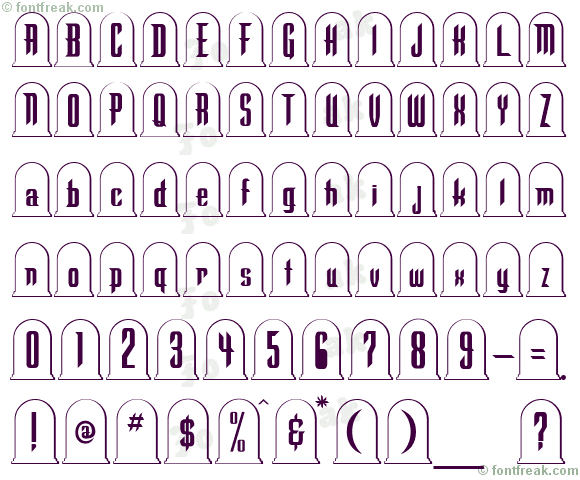
Graveyard Regular
About Graveyard Regular
Graveyard Regular is a distinctive decorative font designed by Aaron Beck, part of a Halloween fonts package produced by Audio Electric Systems. This typeface falls into the display category, characterized by its unique and playful style, making it perfect for themed projects. The font features a medium stroke weight with minimal contrast, enhancing its readability while still maintaining an air of whimsy. The letterforms are adorned with rounded tops, reminiscent of gravestones, which add a charming yet eerie quality to the design. The spacing is carefully considered to ensure clarity and legibility, making it suitable for various applications.
Graveyard Regular is ideal for a range of creative projects, particularly those with a Halloween theme. It works exceptionally well on spooky invitations, party flyers, and movie posters that aim to capture the essence of the season. Additionally, this font can be effectively used for merchandise such as T-shirts, stickers, and other themed products targeting seasonal celebrations. The playful nature of the typeface also appeals to graphic designers, small business owners, and content creators looking to add a touch of fun to their designs.
What sets Graveyard Regular apart is its ability to evoke a sense of festivity while maintaining a unique character. This font embodies the spirit of Halloween, making it a standout choice for anyone looking to create memorable and engaging designs. Whether you're crafting promotional materials for a haunted event or simply want to add a quirky twist to your project, the Graveyard Regular font free download is an excellent addition to any designer's toolkit. Its charming design and versatility ensure it will bring a delightful touch to your creative endeavors.